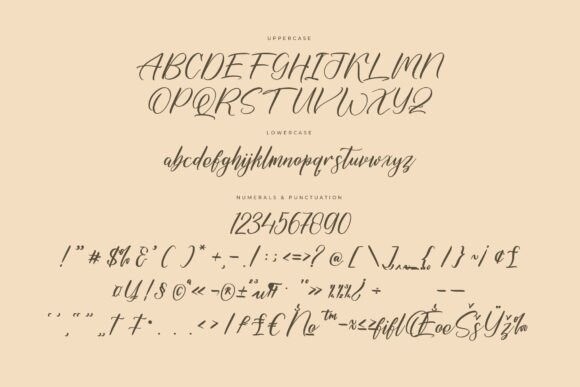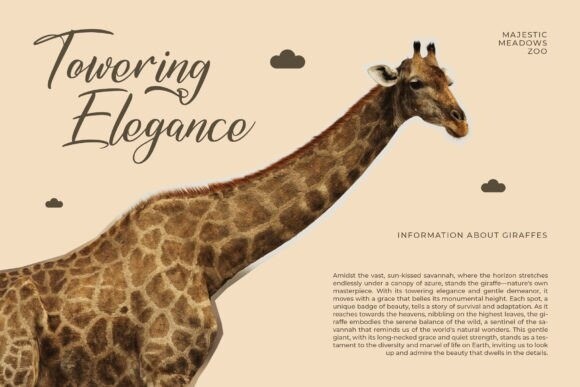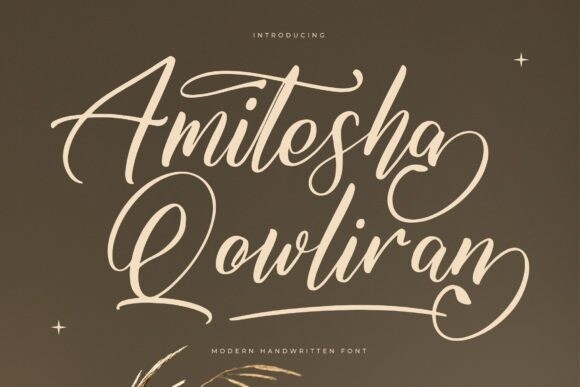
Amitesha Qowliran Font
Amitesha Qowliran Font is a dazzling script font that exudes elegance and charm. With its fluid strokes and intricate details, it captivates the eye and adds a touch of sophistication to any design project. Perfect for invitations, branding, and headlines, Amitesha Qowliran brings a sense of luxury and style to your creations.